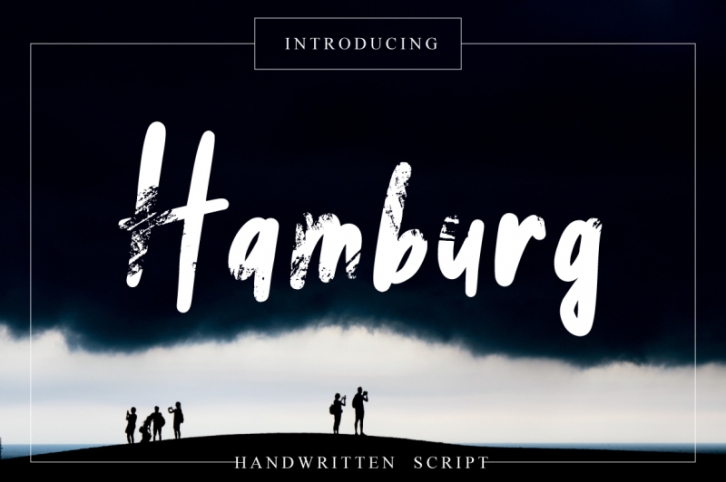
Hamburg
It is boldy handwritten font and press font. This font looks great as a standalone or in conjunction with others. This font is ideal for branding and decorate your any project.
This font are perfect for festival posters or your blog. Also with their help, you can create a logo or wedding invitation. Or just use for your small business, book covers, stationery, marketing, magazines and more.